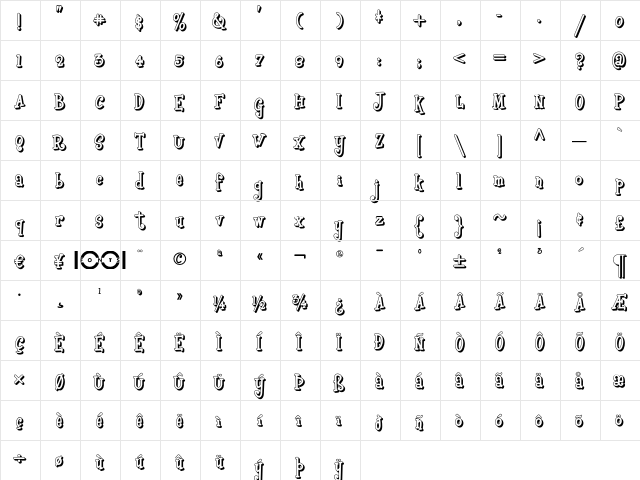
Boyz R Gross NF Shadow
Design Context for Boyz R Gross NF Typeface
Boyz R Gross NF is built around its visual character rather than neutral utility — its distinctive forms are designed to make an impression at display sizes.
Font Pairing: Pair with a clean neutral sans-serif for body copy to let Boyz R Gross NF's character lead without overwhelming the composition.
Pro Tip: Treat Boyz R Gross NF as the centrepiece of your typographic hierarchy. One strong heading set in a decorative face can carry an entire layout.